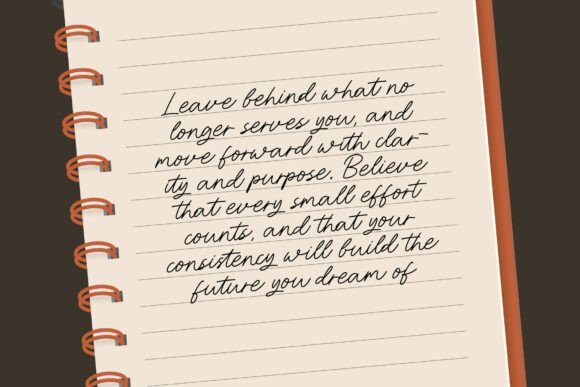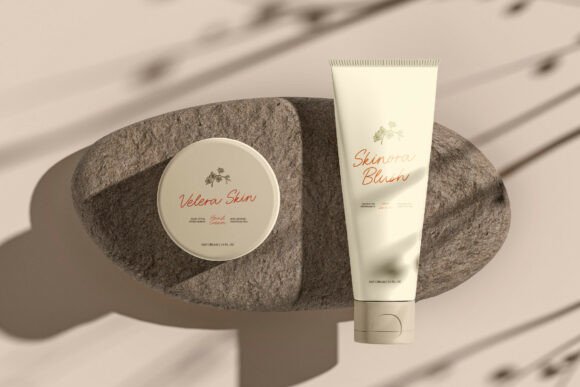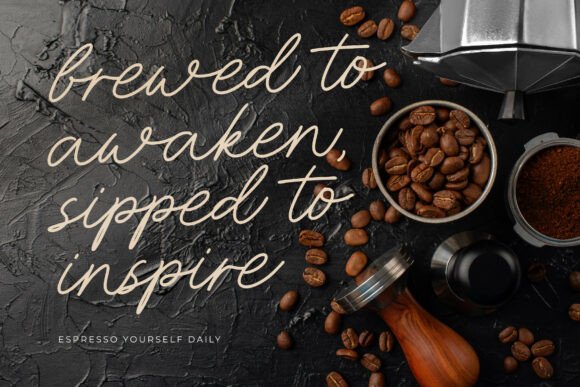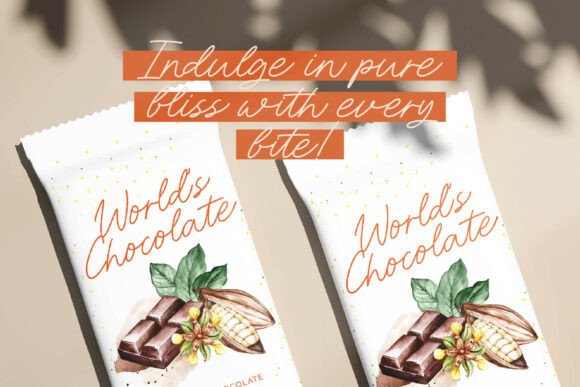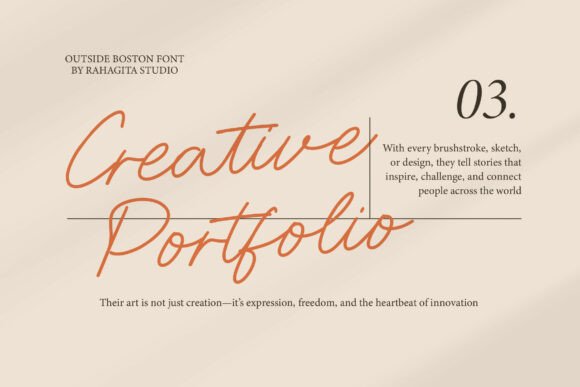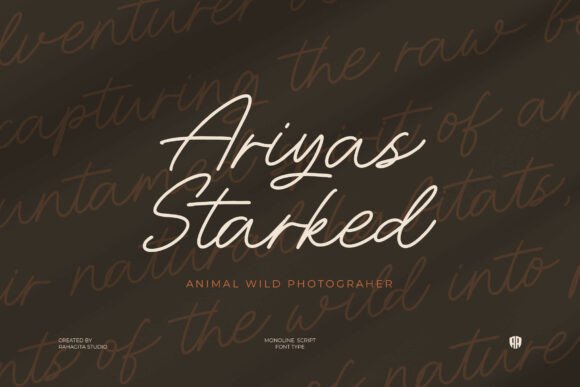
Introduction to Outside Boston Font
Outside Boston is a charming monoline script font that blends urban cool with handwritten elegance.
Featuring smooth curves and 29 custom ligatures, it brings a natural flow and personality to any project Perfect for logos, quotes, invitations, personal branding, and social media graphics, Outside Boston adds a touch of authenticity and warmth.
Key Features of Outside Boston Font
Outside Boston Font offers exceptional quality and versatility, making it a valuable addition to your design toolkit. Whether you’re creating for personal projects or commercial use, Outside Boston Font delivers professional results.